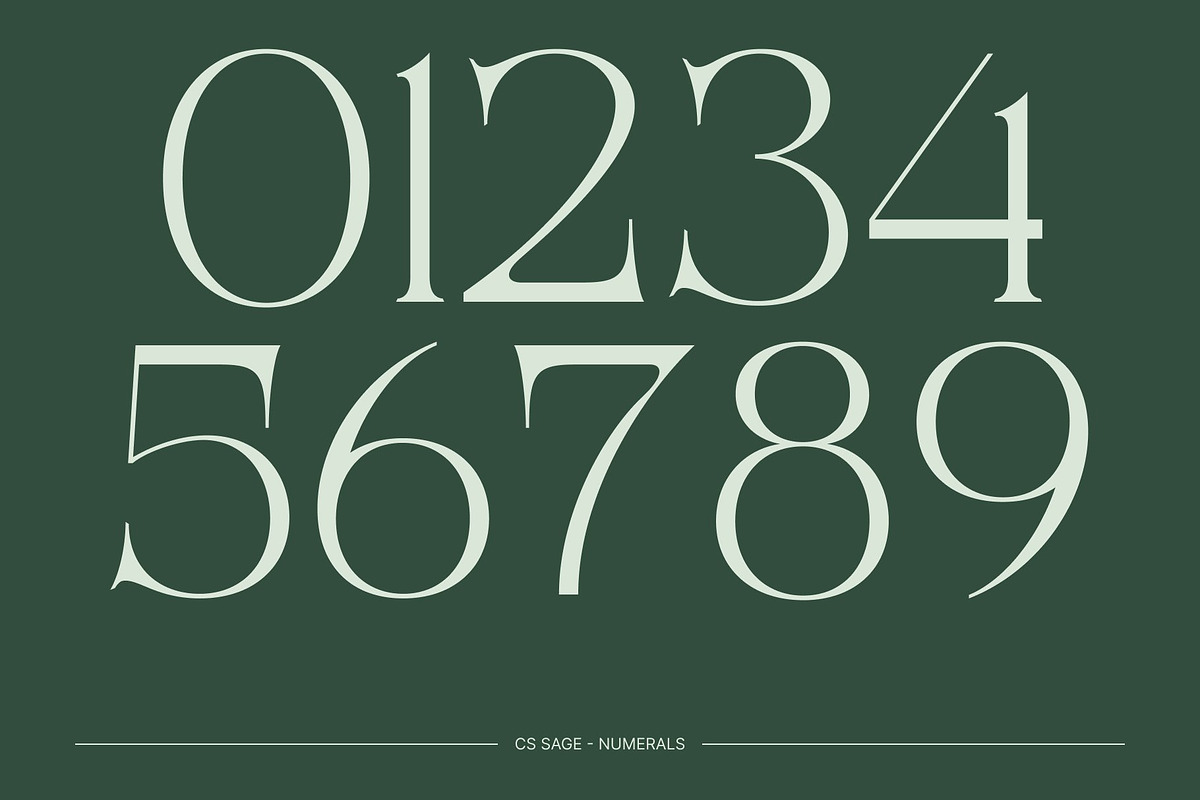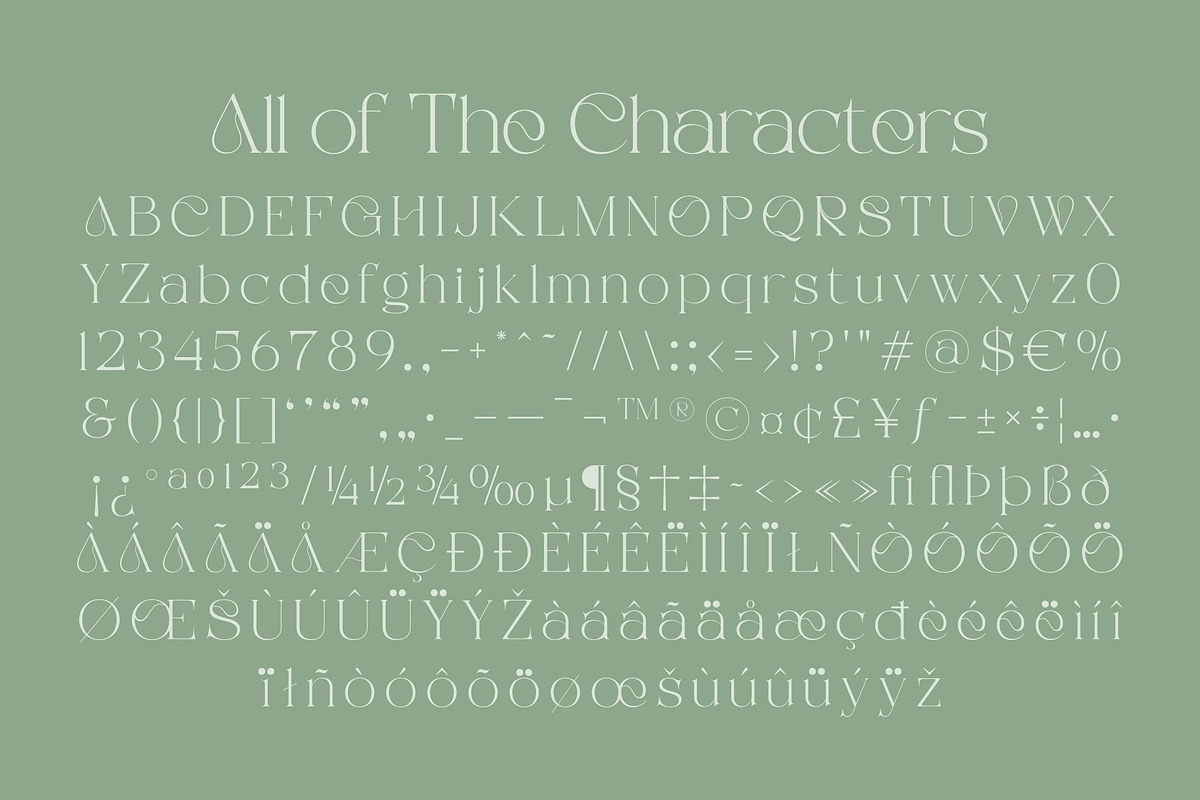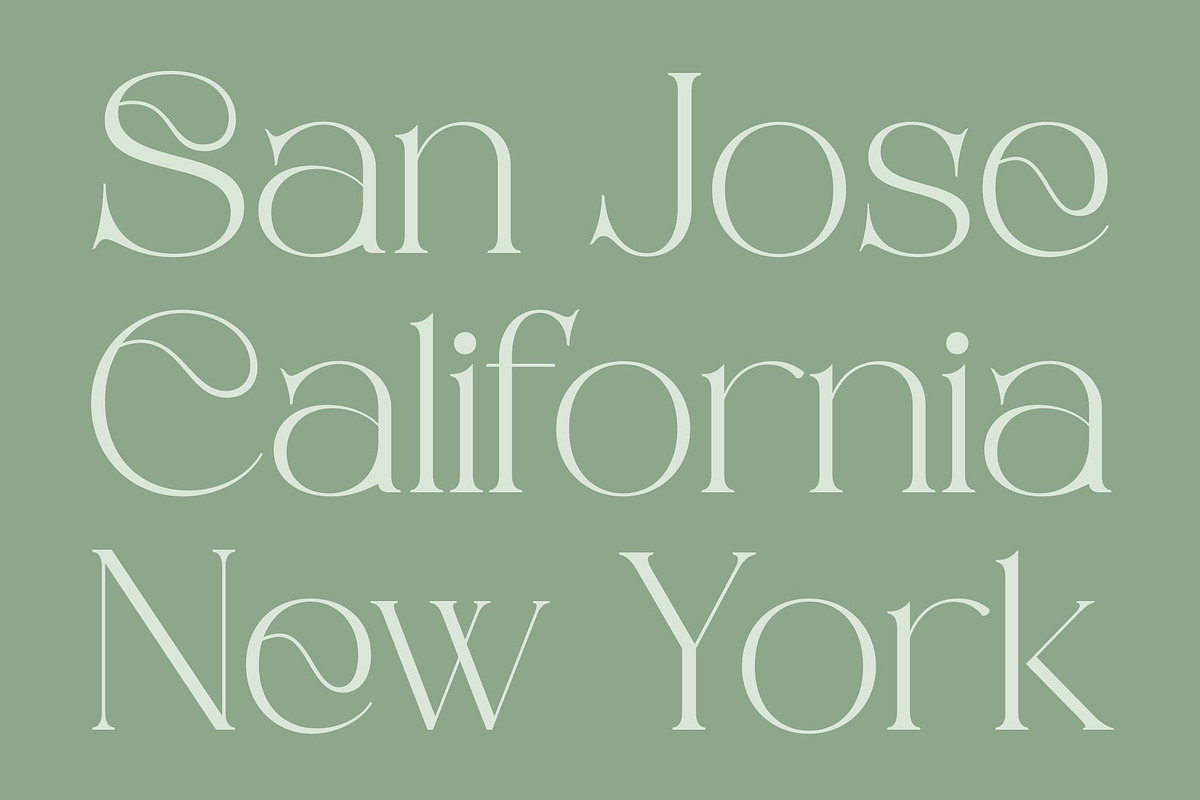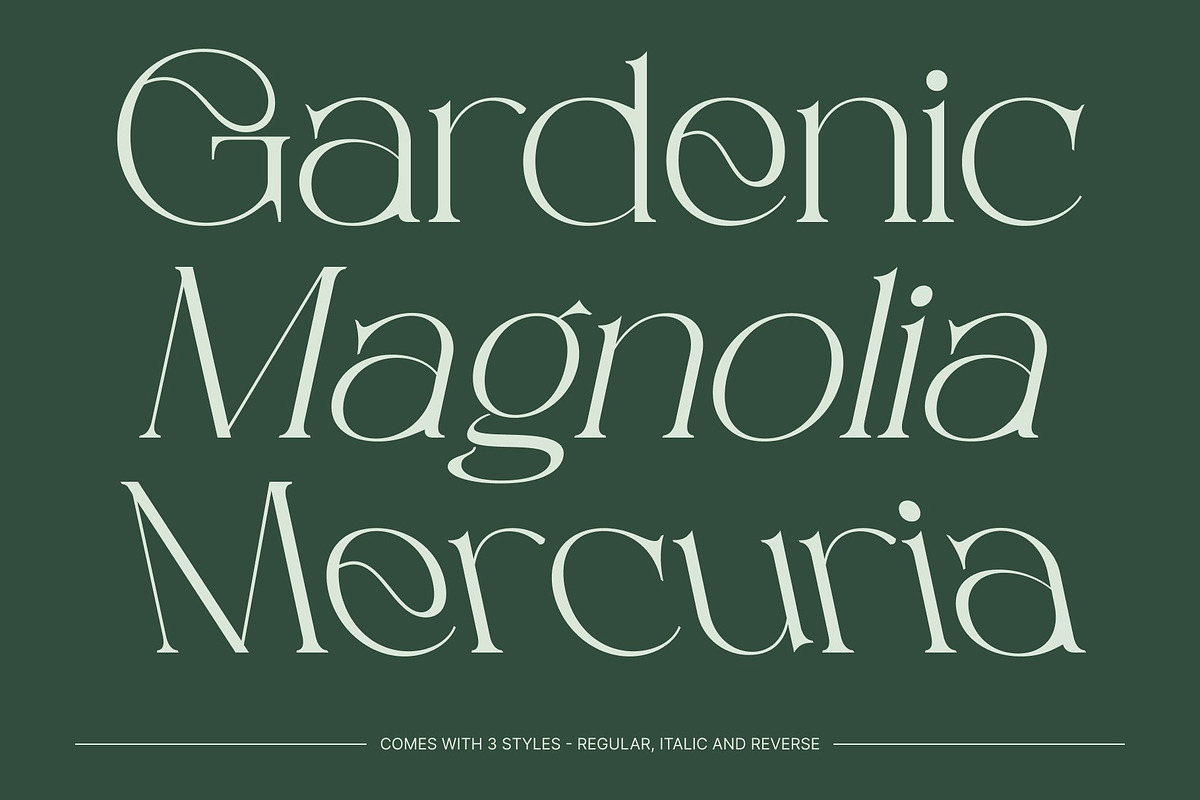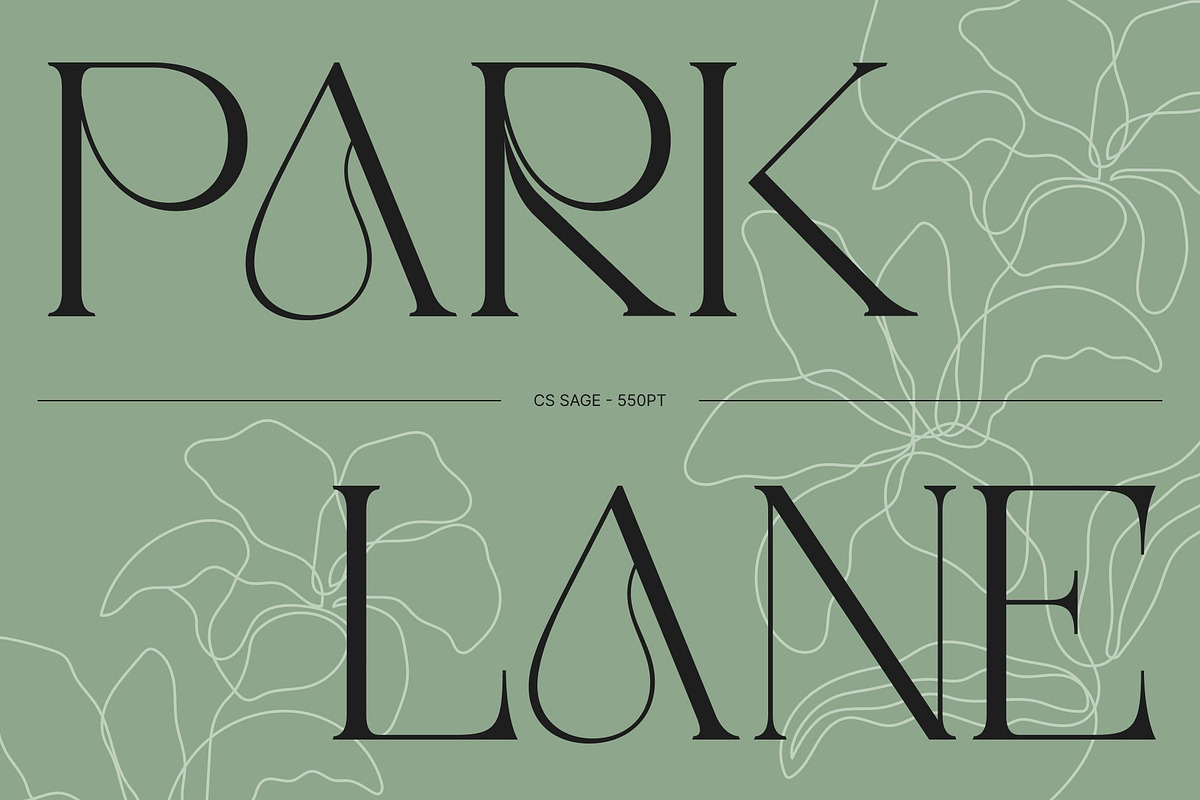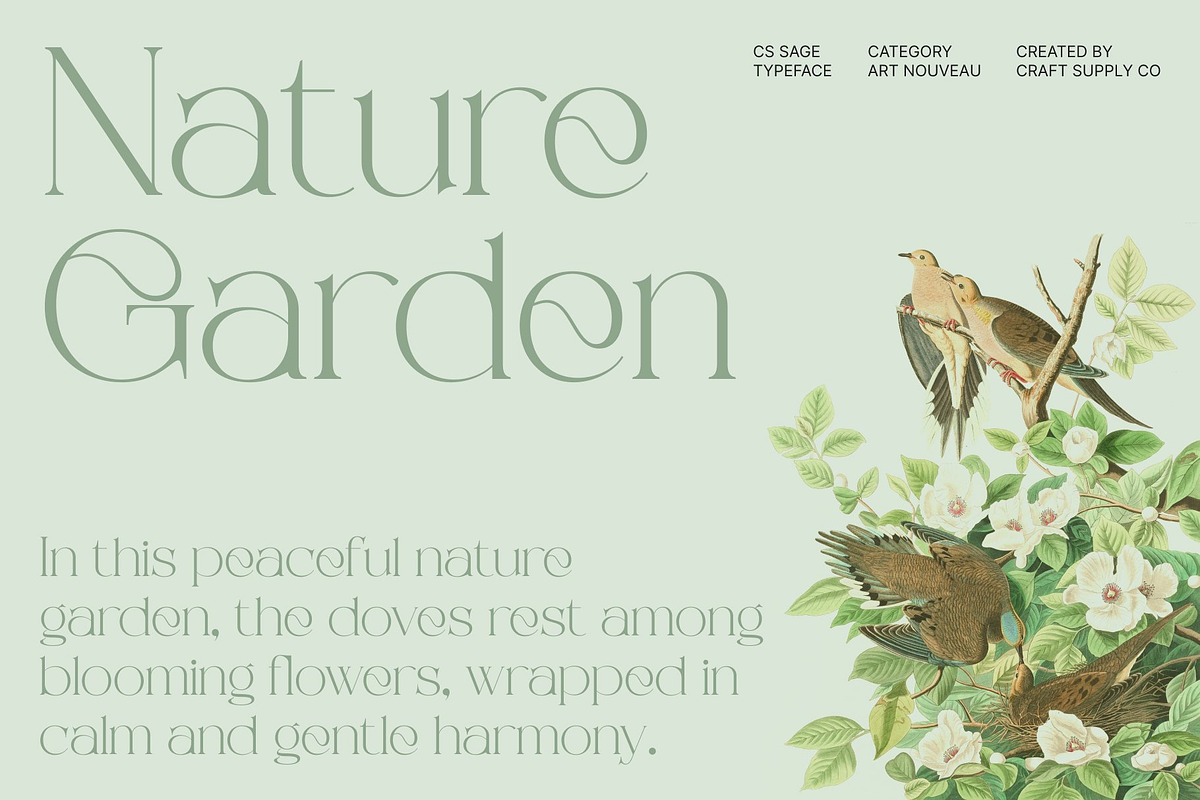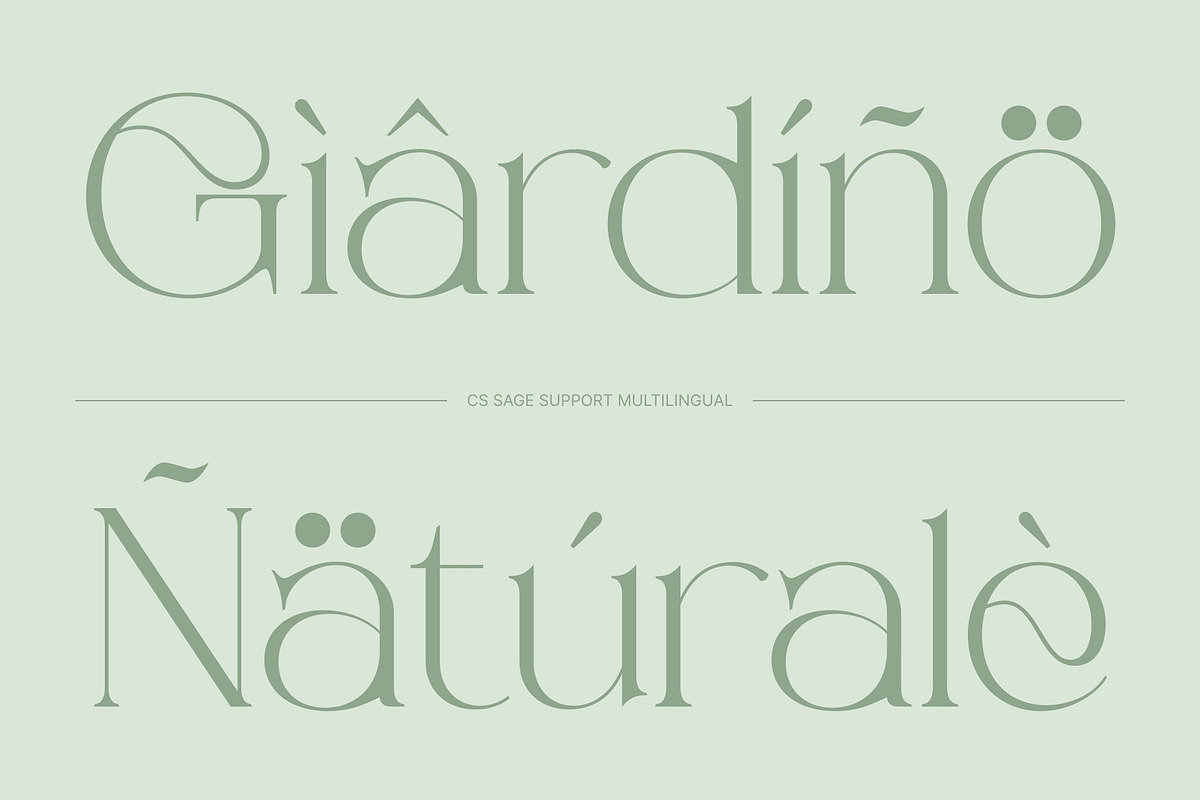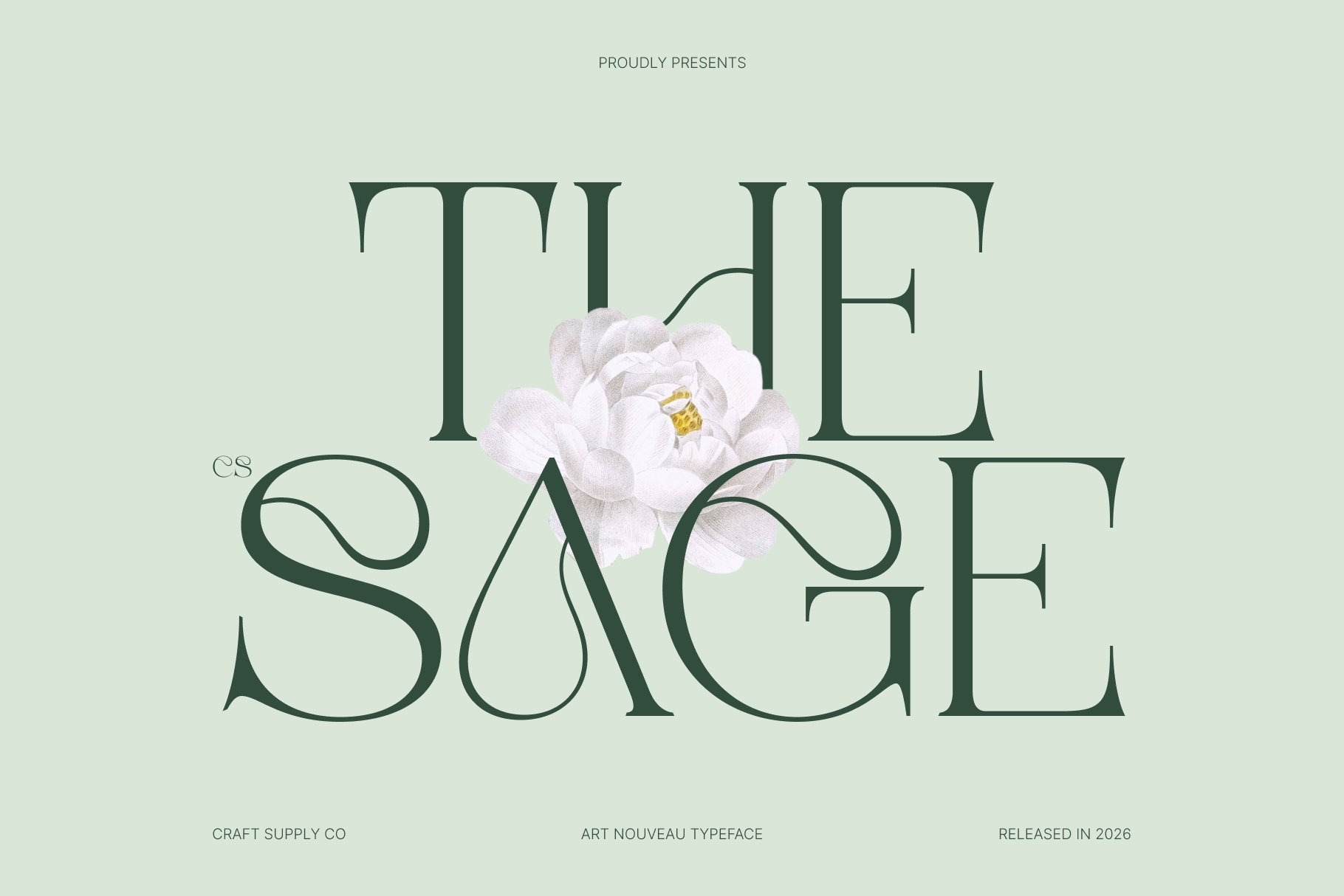
CS Sage – Art Nouveau Font
CS Sage – Art Nouveau Serif with Elegant Organic Flow
Art Nouveau Serif with Graceful Character This is an Art Nouveau serif font defined by smooth, organic lines and refined decorative elegance. Inspired by the flowing beauty of classic Art Nouveau typography, it brings a graceful and artistic personality to modern design. The letterforms feel soft yet structured, creating a harmonious balance between expression and readability.
Organic Curves with Fresh Elegance The defining feature of this font lies in its flowing curves and natural rhythm. Each character is crafted with gentle transitions that create movement and visual harmony across text. This organic structure gives the font a fresh, elegant appearance that feels both timeless and contemporary.
Refined Style with Artistic Appeal This font combines decorative charm with a polished serif structure, allowing it to feel sophisticated without becoming overly ornate. Its elegant details and balanced proportions make it ideal for designs that seek a refined and fashionable tone. The font brings warmth, beauty, and artistic sophistication to any layout.
Perfect for Editorial and Luxury Branding Designed for editorials, luxury branding, and fashion campaigns, this font shines in headlines, titles, and premium typography. Whether used in magazine layouts, upscale branding, or high-end promotional visuals, it delivers an elegant and fresh Art Nouveau presence that elevates modern design with style and grace.